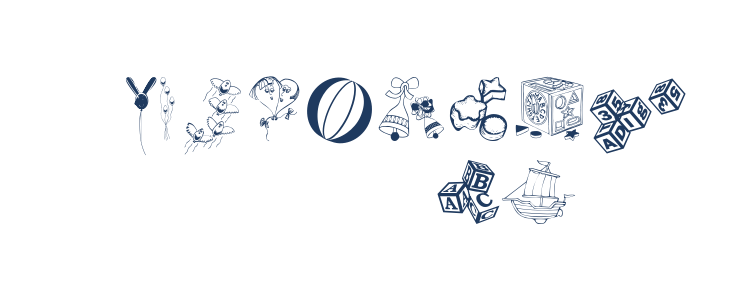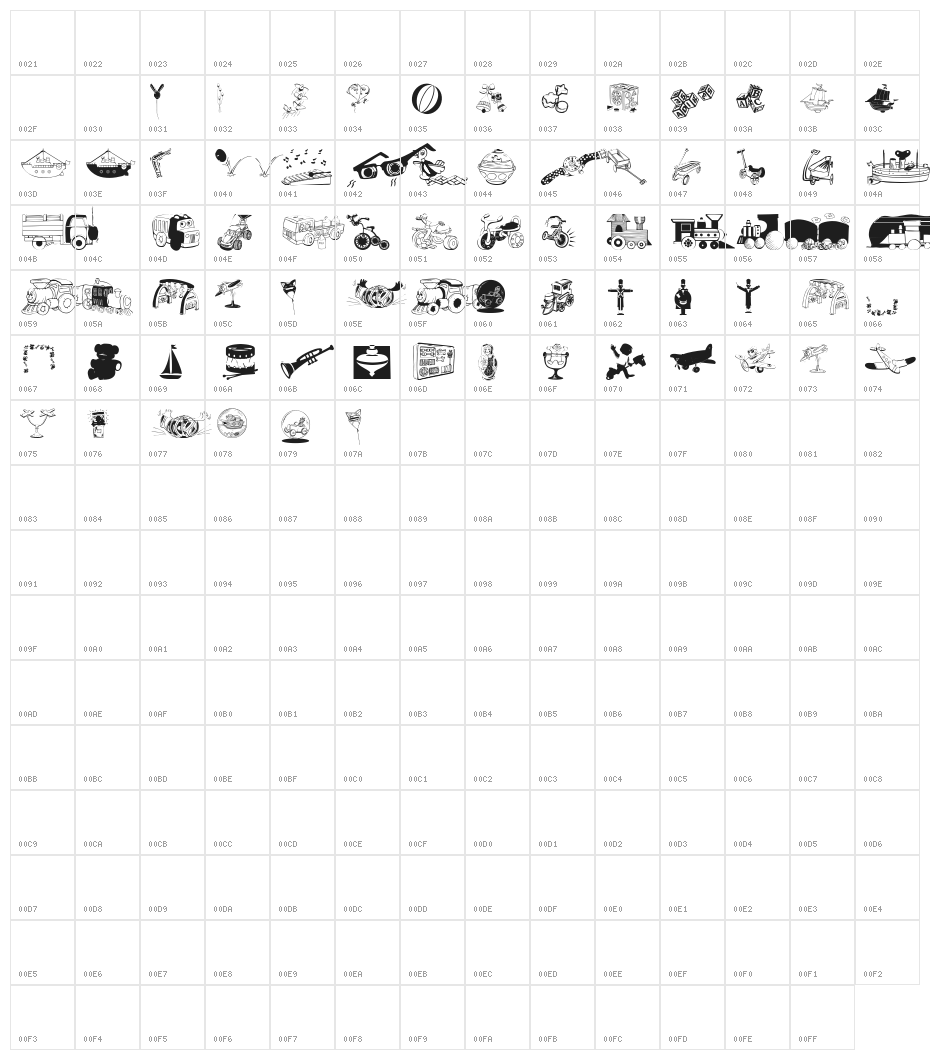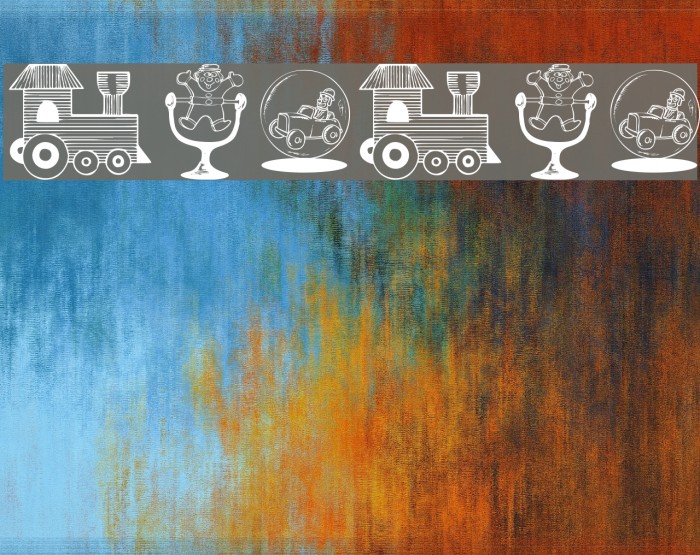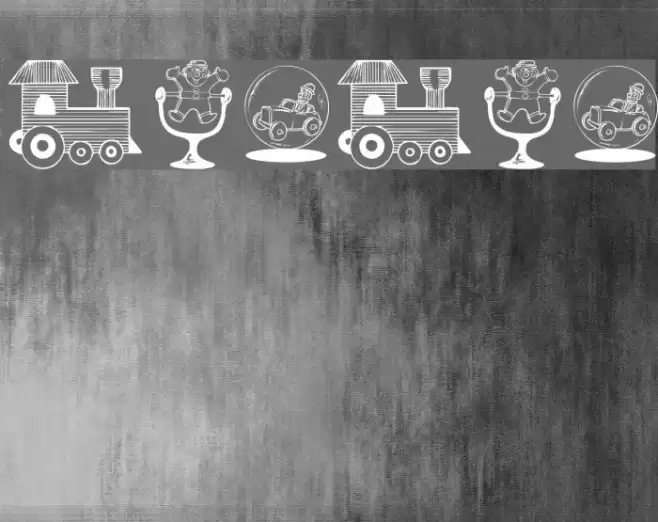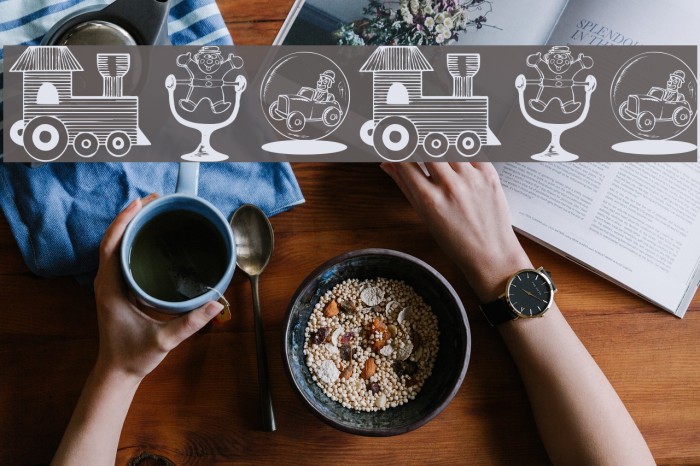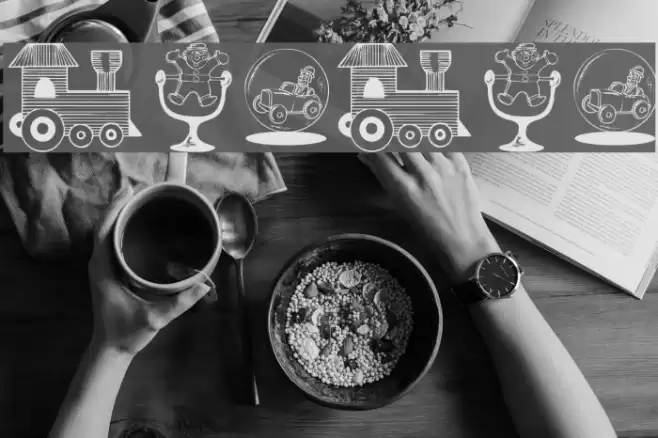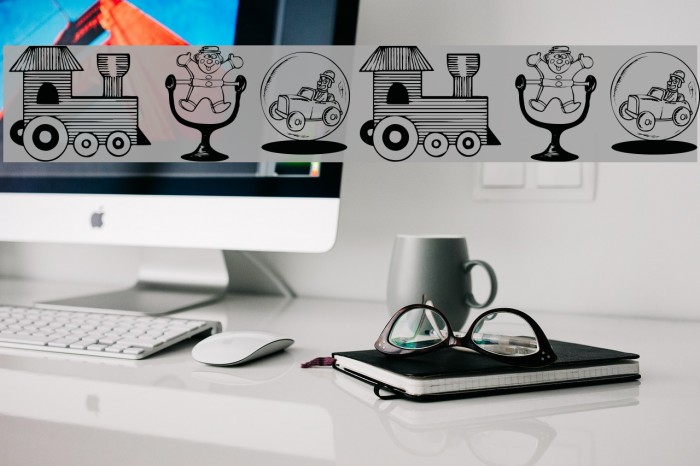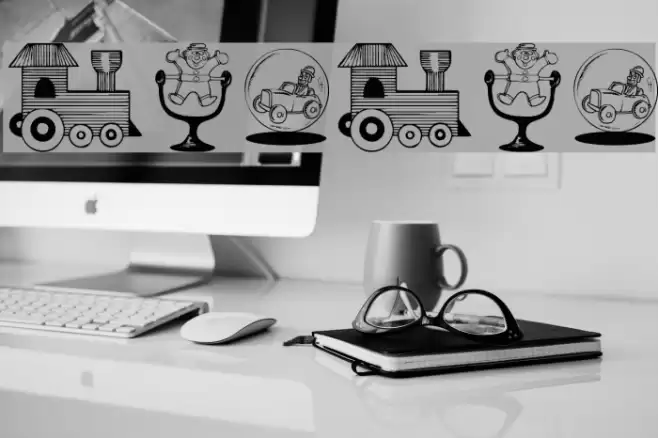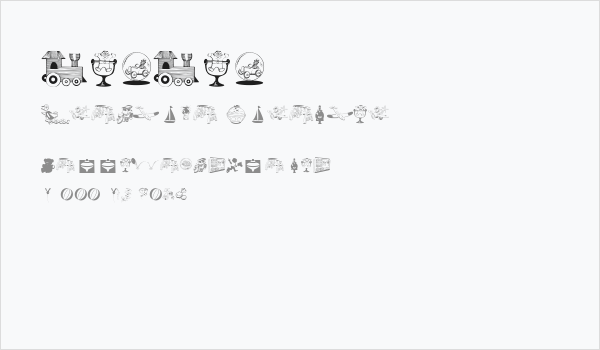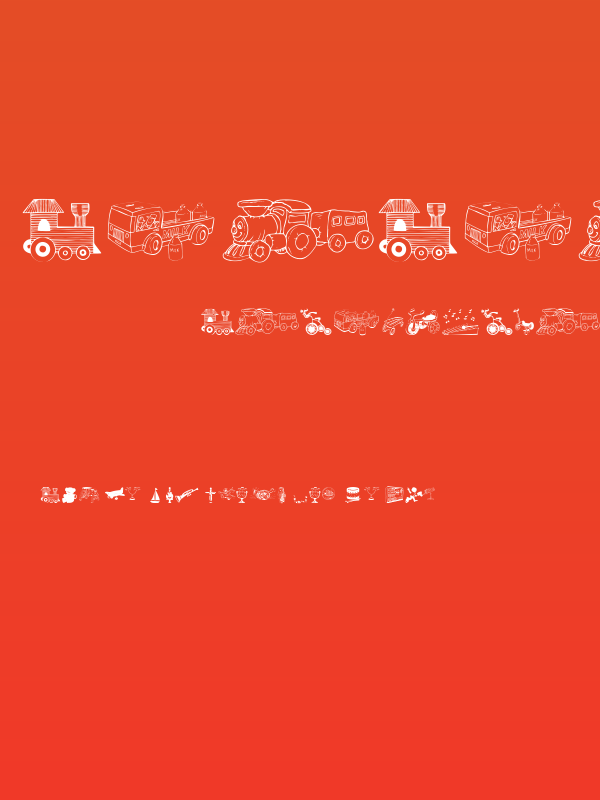
ToyToy Font
ToyToy Description
A playful decorative font composed entirely of whimsical toy-themed illustrations for each character, featuring items such as trains, cars, dolls, blocks, and various classic toys. Each glyph is a unique, detailed drawing representing a different toy, making the set highly illustrative and thematic.
Overall StylePlayful, Decorative, Whimsical
Use CaseLogos, Posters, Invitations, Themed Graphics
Proposed ProjectsChildrenÒ€ℒs party invitations, toy store branding, educational materials, playful posters, and themed event graphics.